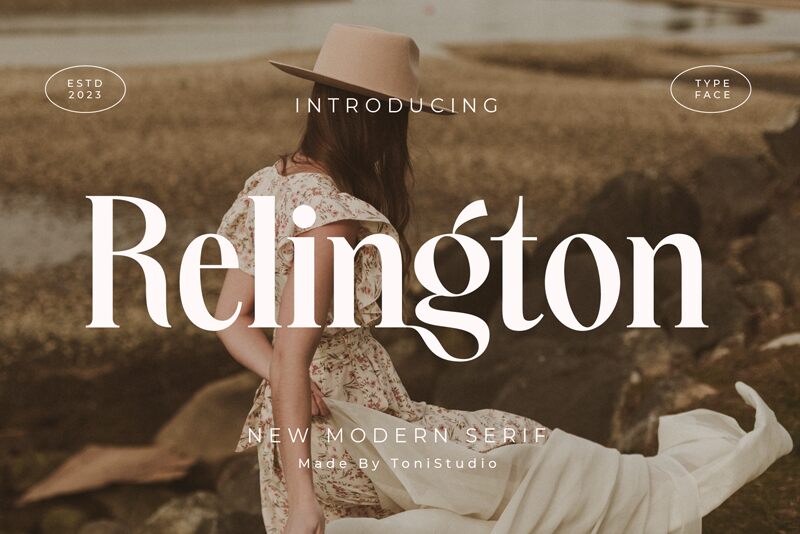
Relington
Relington, a creation by ToniStudio, is a serif font that exudes a blend of classic sophistication with contemporary flair. The semi-condensed width of Relington offers an elegant efficiency to its appearance, making it highly legible while maintaining a distinct character. The serifs add a touch of tradition, but their subtle design doesn't overwhelm, allowing the font to retain a modern edge.
As you look at Relington's curves and lines, you'll notice its unique balance between formality and accessibility. This makes it incredibly versatile for various creative projects. Whether it's for branding that requires an air of professionalism or for editorial content that demands readability without sacrificing style—Relington stands out as an impeccable choice.
Its aesthetic appeal lies in the delicate transitions from thick to thin strokes and the harmonious proportion of letters. These design choices give Relington not just personality but also function; it's just as impactful in print as it is on digital platforms. For designers seeking a typeface that marries elegance with practicality, Relington is undeniably suited to make your next project both engaging and memorable.